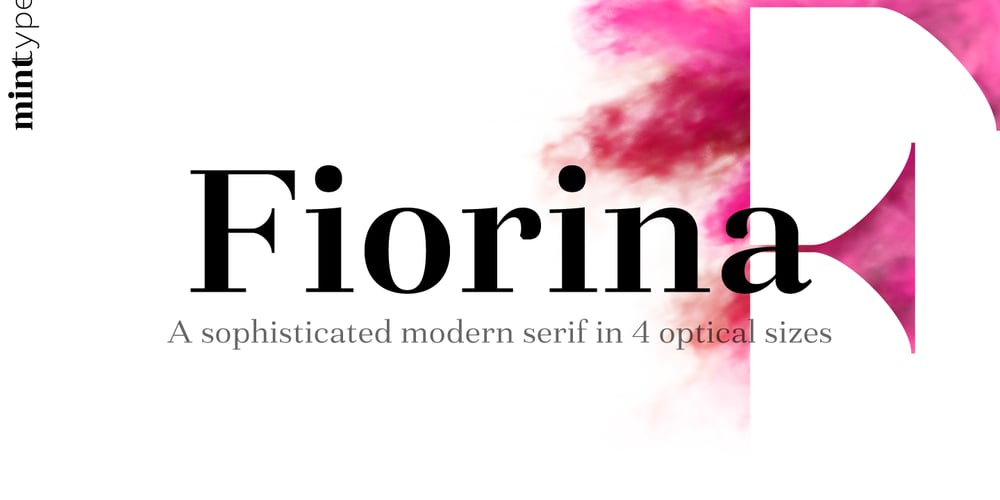
Fiorina
Fiorina font
Fiorina Font Family was designed by Andriy Konstantynov and published by Mint Type. Fiorina contains 72 styles and family package options. Fiorina is a modern Didone-style serif typeface of 72 fonts. It comes in 4 optical sizes, ranging from Text with moderate contrast to super-contrasted Grande.Each cut comes in 9 weights with corresponding sophisticated italics. The overall variety of styles makes Fiorina the ultimate magazine typeface.The glyph set supports all European Latin-based languages, as well as all major languages that use Cyrillic script. The type family also suppors numerous OpenType features, including 6 sets of digits, small caps, fractions, superscript and subscripts, ordinals, and more.